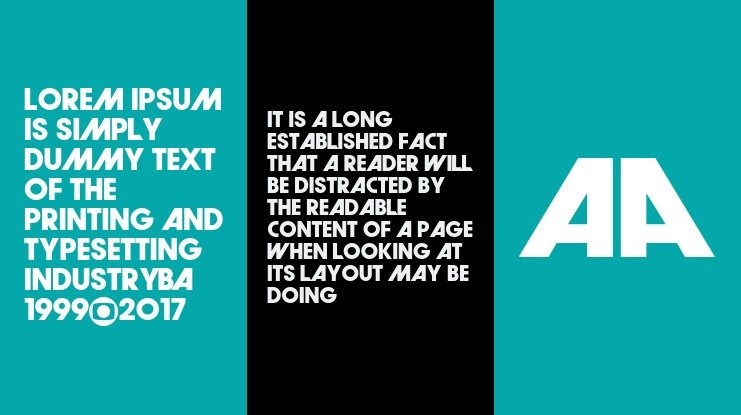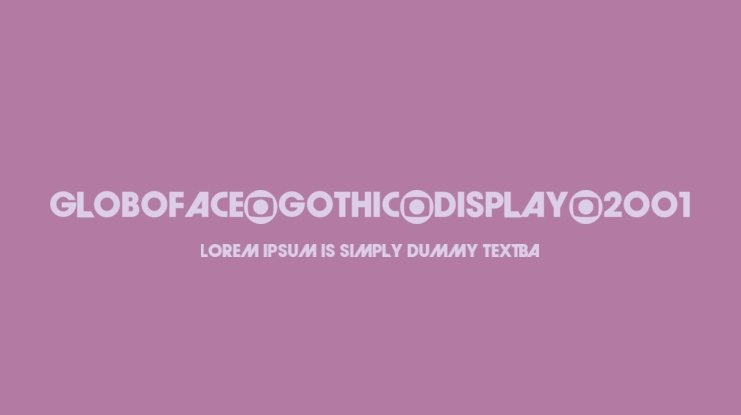
Globoface-Gothic-Display-2001 Font Free, This font was created for all forms of business and branding such as clothing, logos, skate boards and others according to your needs.
Globoface-Gothic-Display-2001 Font